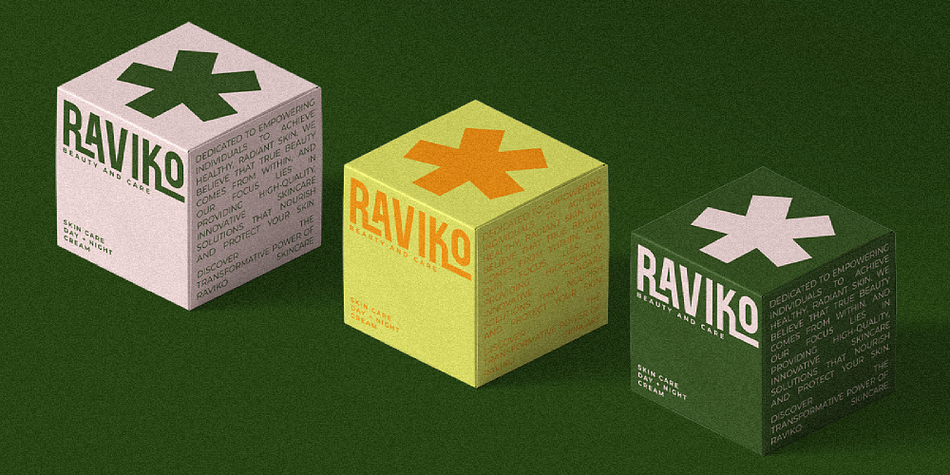
AGISTOR
Designed by Lucky Fitriadi, AGISTOR is a sans serif font family. This typeface has two styles and was published by Brainwaves Studio.
Agistor is a versatile sans-serif display font that combines bold modern aesthetics with a touch of retro nostalgia. Its clean, geometric shapes are paired with stylish uppercase, lowercase characters and unique ligatures, making it a perfect choice for standout designs.
Whether you’re designing for branding, packaging, posters, or editorials, Agistor’s bold, retro-modern vibe will elevate your creations and captivate your audience. Try Agistor and make your designs unforgettable!